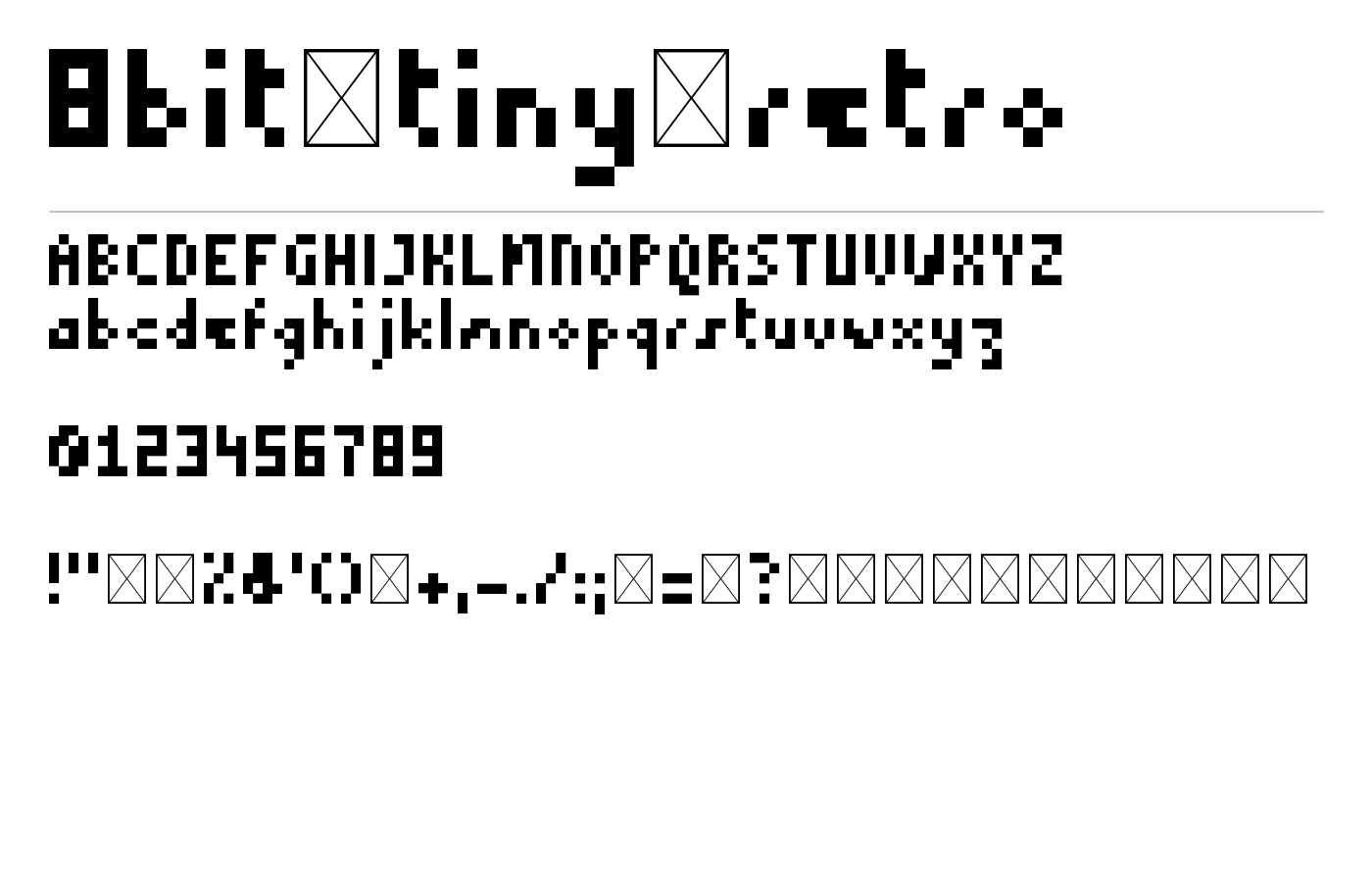
8bit_tiny_retro is a pixelated, monospaced sans serif font that captures the nostalgic essence of classic 8-bit video games. Its blocky, geometric letterforms with consistent stroke weight and minimal detail make it ideal for retro-themed designs, digital displays, and playful branding. This font works best in headlines, logos, and small-size digital art where a vintage video game vibe is desired.
8bit_tiny_retro Font
About 8bit_tiny_retro Font